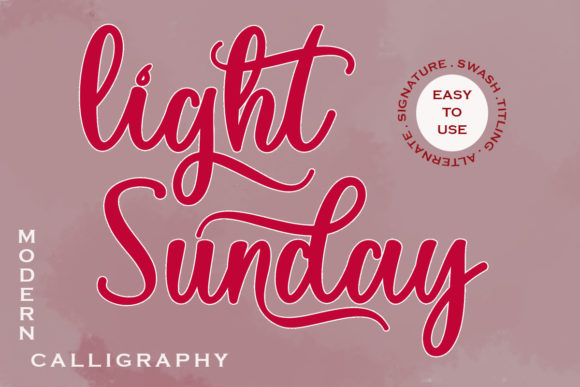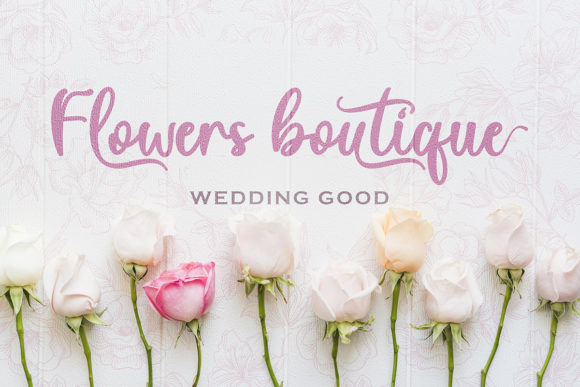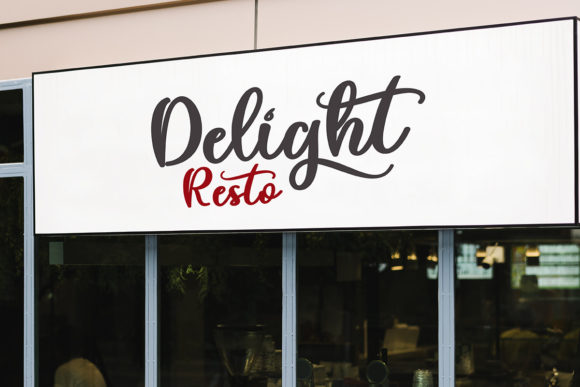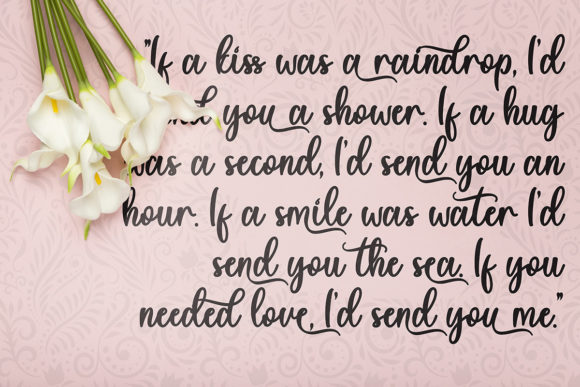
About Light Sunday Font
Light Sunday is a modern handwritten font with beautiful lettering. It can be used for summer, spring, back to school, logos, branding, banners, posters, prints, weddings, invitations, birthdays, boutiques, promotions, social media, quotes. This font is PUA encoded which means you can access all of the glyphs and swashes with ease!